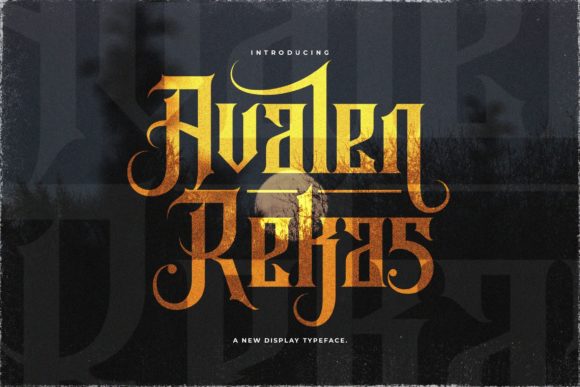
Dive into the realm of dark artistry with Avalen Rekas, a blackletter font that dances on the edge of elegance and mystique. StringLabs has masterfully crafted this font, etching each letter with precision, capturing the essence of an age-old script. Avalen Rekas is not just a font; it's a gateway to a world of creative possibilities, beckoning you to express your individuality and unleash your artistic prowess.
With its intricate curves and sharp edges, Avalen Rekas evokes a sense of timelessness, seamlessly blending the allure of the past with the freshness of modernity. Its bold strokes command attention, while the delicate flourishes add a touch of sophistication, making it the perfect choice for designs that demand a touch of intrigue and drama.
Imagine your words transformed into captivating works of art, your designs imbued with a timeless charm. Avalen Rekas has the power to elevate your creativity, lending a touch of mystique to logos, posters, flyers, social media posts, and more. It's the perfect font for capturing the essence of a bygone era or adding a touch of intrigue to contemporary designs.
Unlock the full potential of your artistic vision with Avalen Rekas. Let your imagination soar as you explore the limitless possibilities this font offers. Its versatility knows no bounds, allowing you to craft designs that speak to your soul, designs that leave an everlasting impression.
So, embrace the allure of Avalen Rekas, and embark on a creative journey where every word, every design, becomes a testament to your artistic brilliance. Unleash the power of self-expression, captivate your audience, and leave them spellbound with your creations.